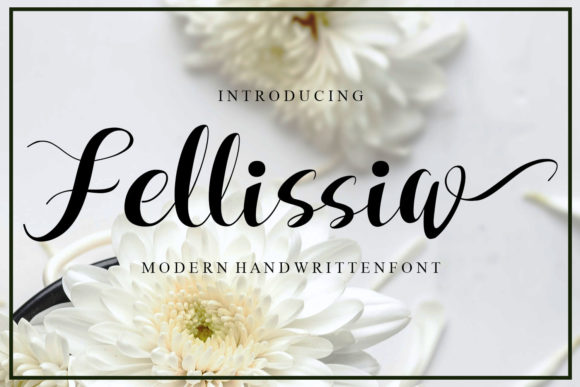
**Fellissia Font: The Epitome of Elegance and Charm**
In the realm of fonts, Fellissia reigns supreme, captivating hearts with its irresistible charm and timeless allure. A modern masterpiece crafted by the visionary MengulirPena, Fellissia is a handwritten font that embodies the essence of romance and sophistication. With its varying baseline, smooth lines, and captivating glyphs, Fellissia elevates your designs to new heights of beauty and distinction.
Step into a world of elegance and grace as you explore the boundless creative possibilities that Fellissia offers. From invitations to Christmas cards, quotes to greeting cards, this font adds a touch of magic to every project you undertake. It dances across logos and business cards, effortlessly enhancing their visual appeal. Whether you seek a personal touch for your signature email or aspire to create captivating marketing materials, Fellissia is your trusted companion, transforming ordinary words into works of art.
Immerse yourself in the world of Fellissia and unleash your creativity. Its versatility knows no bounds, adapting seamlessly to a myriad of design endeavors. With Fellissia, you'll discover a font that captures the essence of handwritten charm, adding a personal touch to every creation. Your designs will radiate warmth and authenticity, captivating your audience with their undeniable charm and elegance.
Fellissia is more than just a font; it's an experience, a journey into the realm of timeless beauty. Let your imagination soar as you explore its exquisite details, crafting designs that resonate with emotion and leave a lasting impression. The possibilities are endless, limited only by the boundaries of your creativity.
Embrace the magic of Fellissia today and witness the transformation of your designs. Its captivating beauty and endless versatility will leave you spellbound, inspiring you to create masterpieces that captivate and enchant. Let Fellissia be your muse, guiding you on a creative journey that will leave your audience breathless.
**Key Features:**
* Exquisite handwritten font
* Varying baseline for added charm
* Smooth lines and gorgeous glyphs
* Perfect for invitations, cards, quotes, and logos
* Adds a personal touch to emails and marketing materials